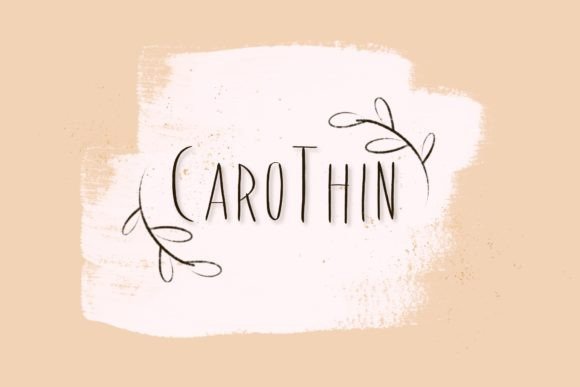
The CaroThin Font: A Simple yet Timeless Choice for Your Designs
I’ll never forget the time I was working on a project for a client who wanted a classic, yet modern look. I had been searching for the perfect font for hours, but nothing seemed quite right. That was when I stumbled upon the CaroThin font. Its simple, elegant design immediately caught my eye, and I knew I had found what I was looking for. In this article, I’ll share with you why I love the CaroThin font, its features, and how to make the most of it in your designs.
A Personal Review of CaroThin
What I Love About CaroThin ✨
- ✅ Simple and elegant design that’s perfect for a wide range of projects
- ✅ Highly versatile, making it suitable for headings, logos, invitations, t-shirt designs, and more
- ✅ Easy to read, even at small sizes
- ✅ A classic touch that will give your designs a timeless feel
- ⚠️ Limited availability of stylistic alternates, which may limit its use in certain projects
- ⚠️ May not be the best choice for body text, as it’s designed primarily for headings and titles
The Backstory of CaroThin
CaroThin was designed with the goal of creating a simple, yet elegant font that would be perfect for a wide range of projects. The designer wanted to create a font that would be both classic and modern, making it suitable for everything from headings and logos to invitations and t-shirt designs. The result is a font that’s both timeless and versatile.
| Font Name | CaroThin Font |
| Author | Carolina Mejia |
Q: What is the CaroThin font?
A: CaroThin is a simple, elegant font that’s perfect for a wide range of projects, including headings, logos, invitations, and more.
Q: What type of projects is CaroThin best suited for?
A: CaroThin is a versatile font that’s suitable for a wide range of projects, including headings, logos, invitations, t-shirt designs, and more.